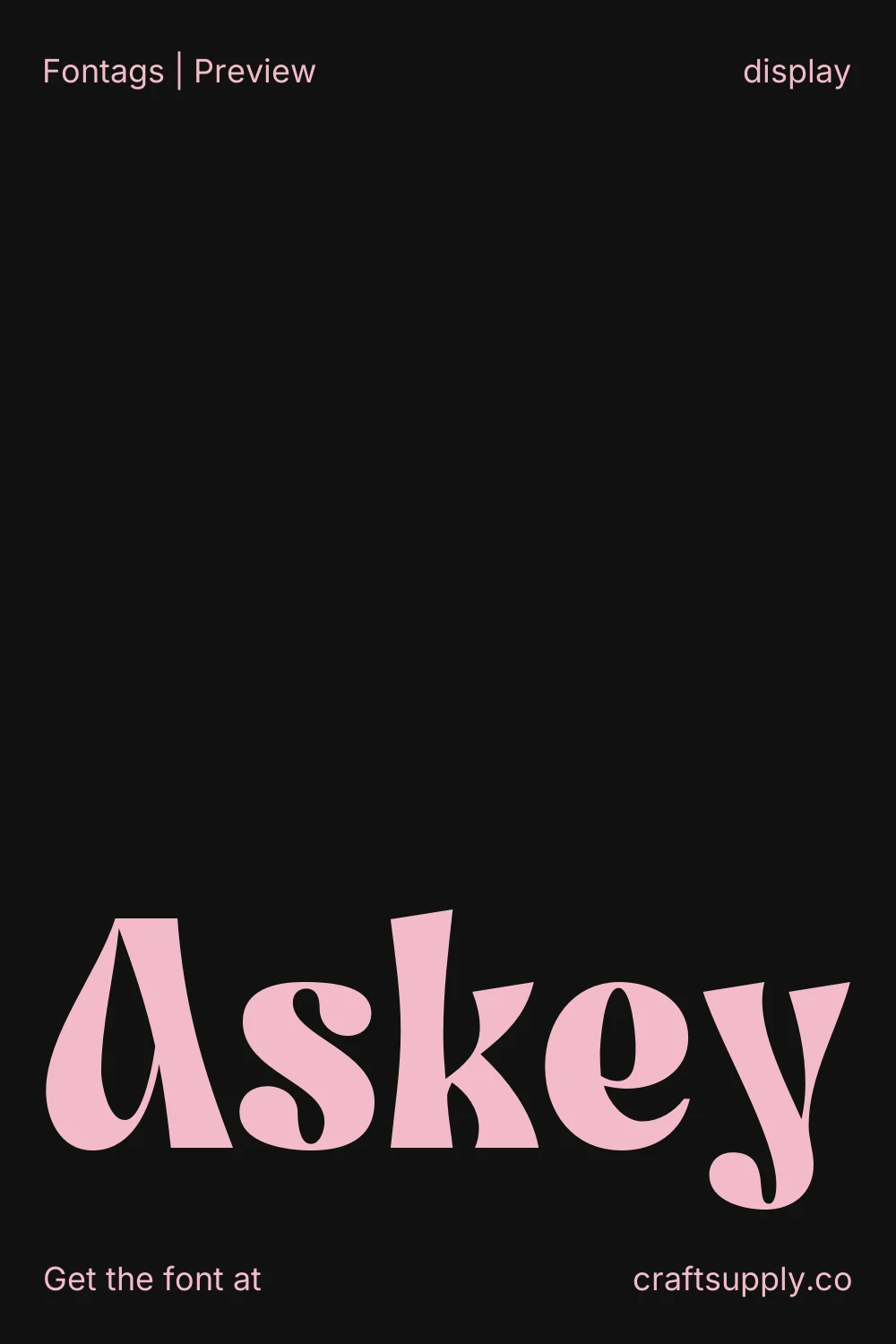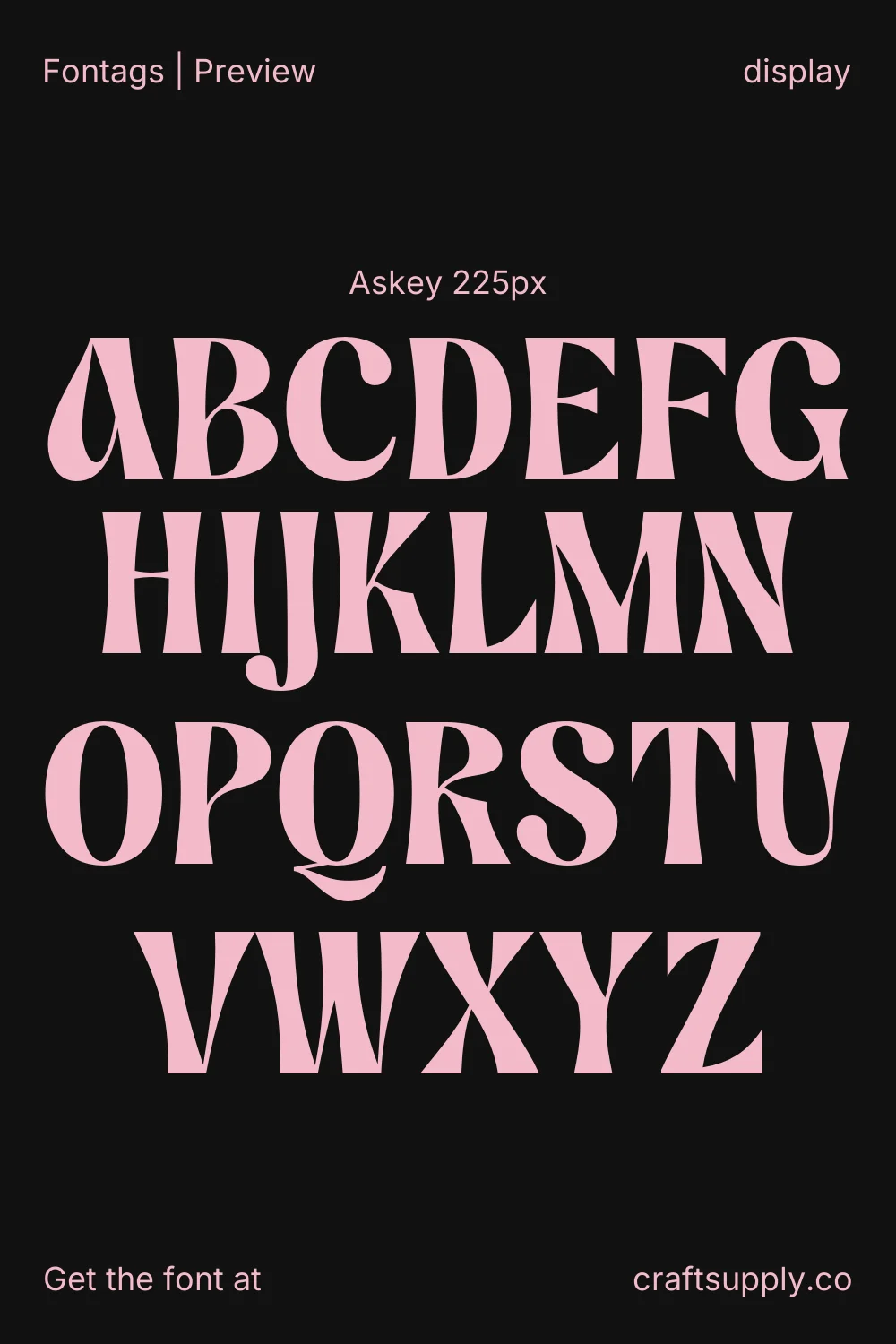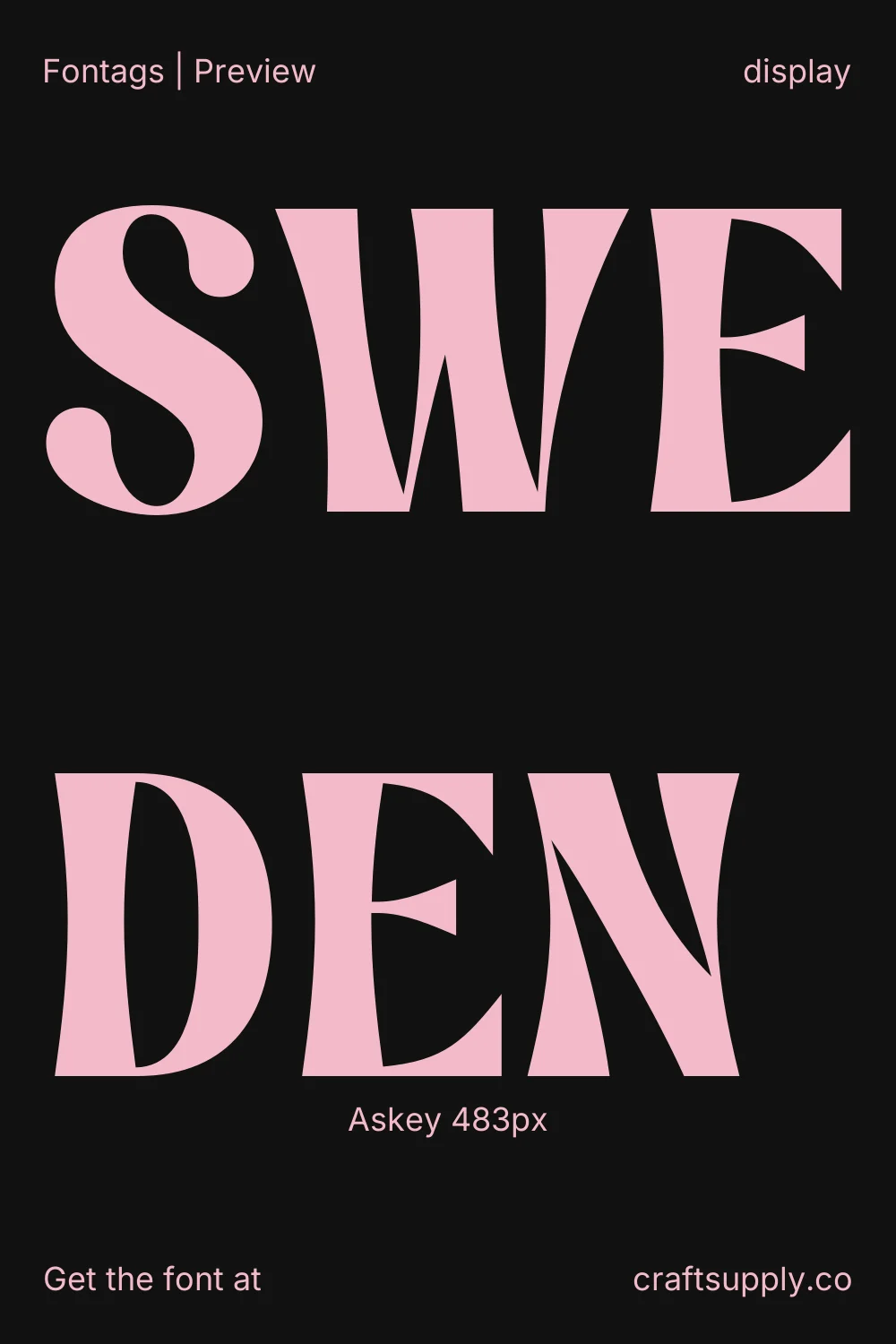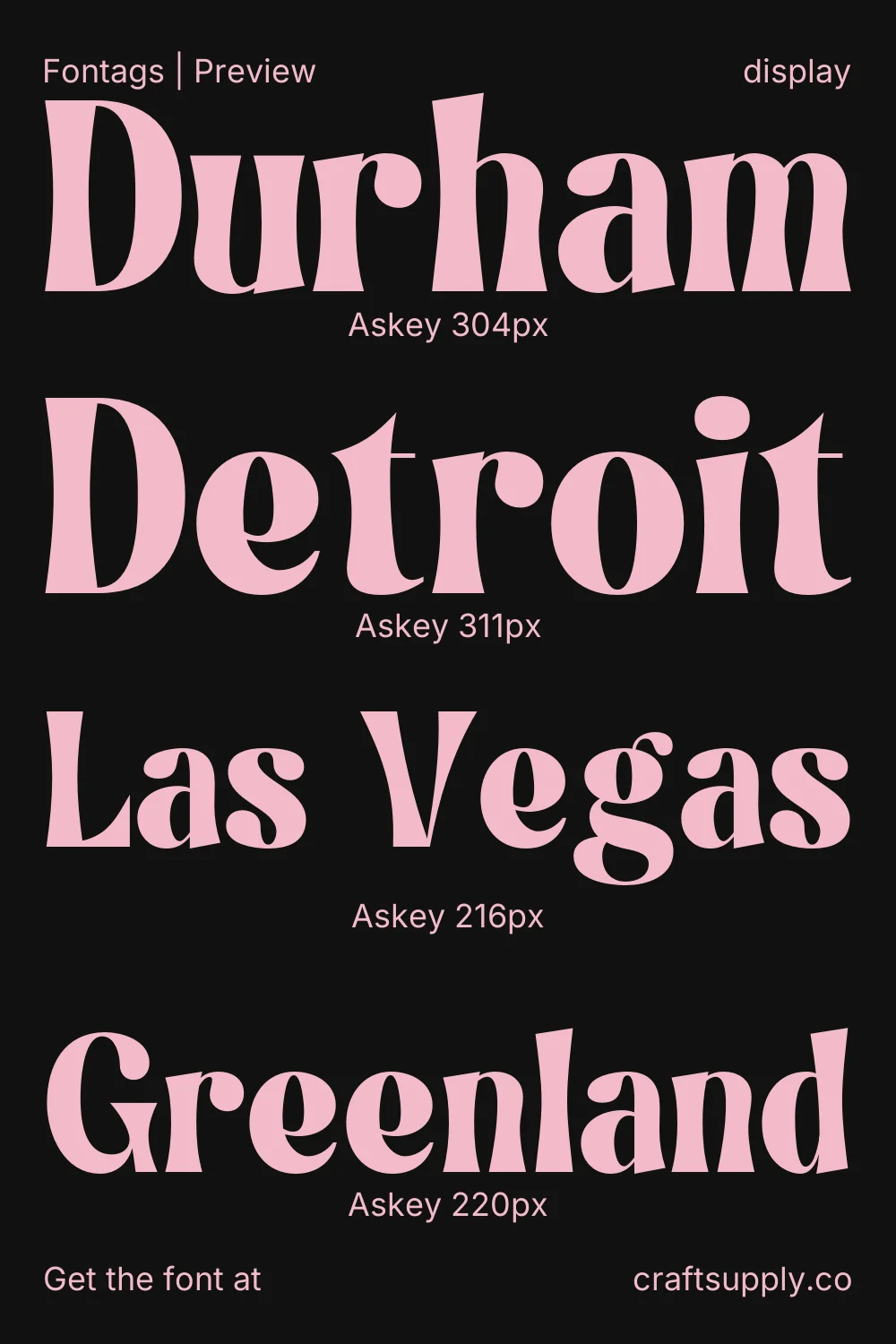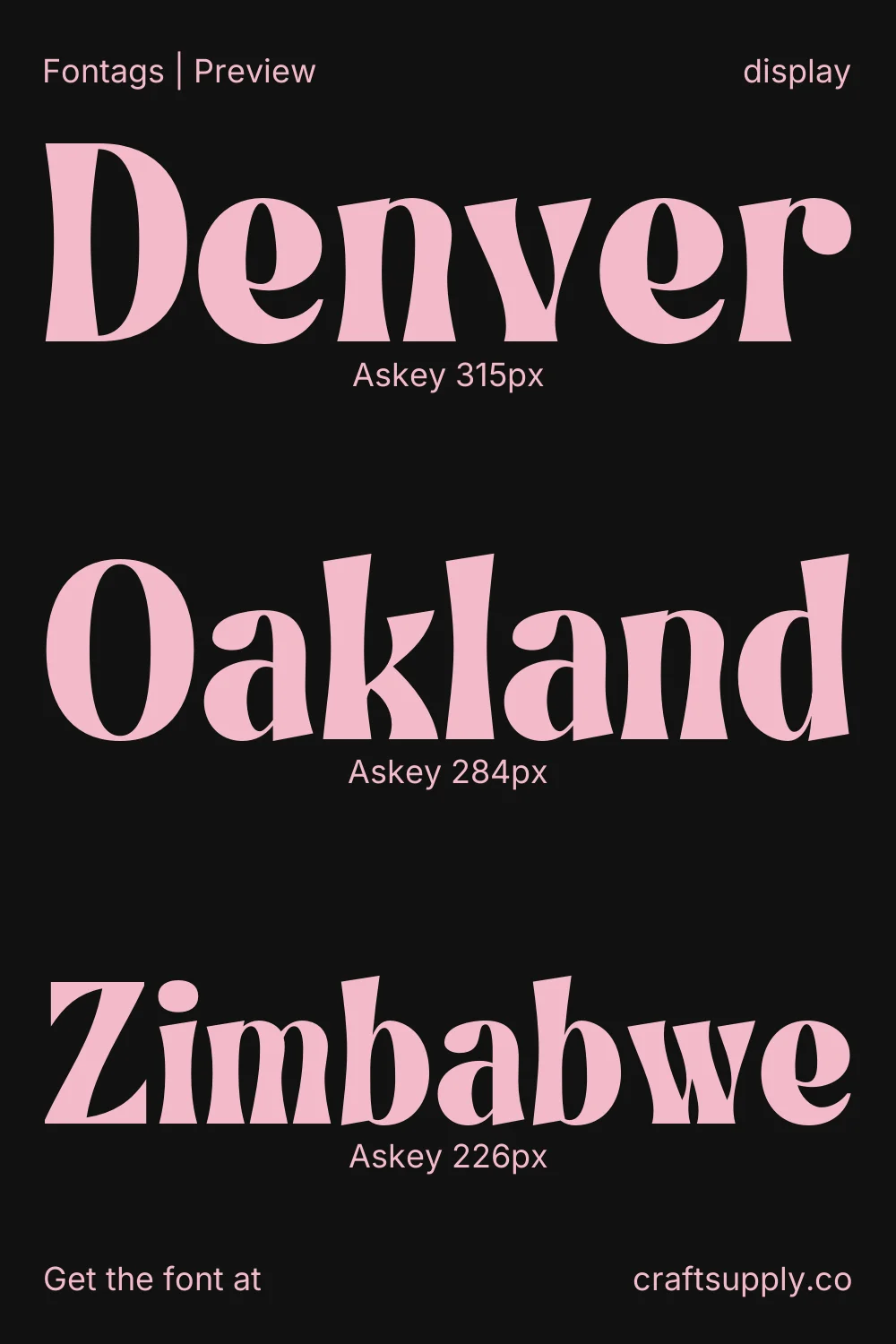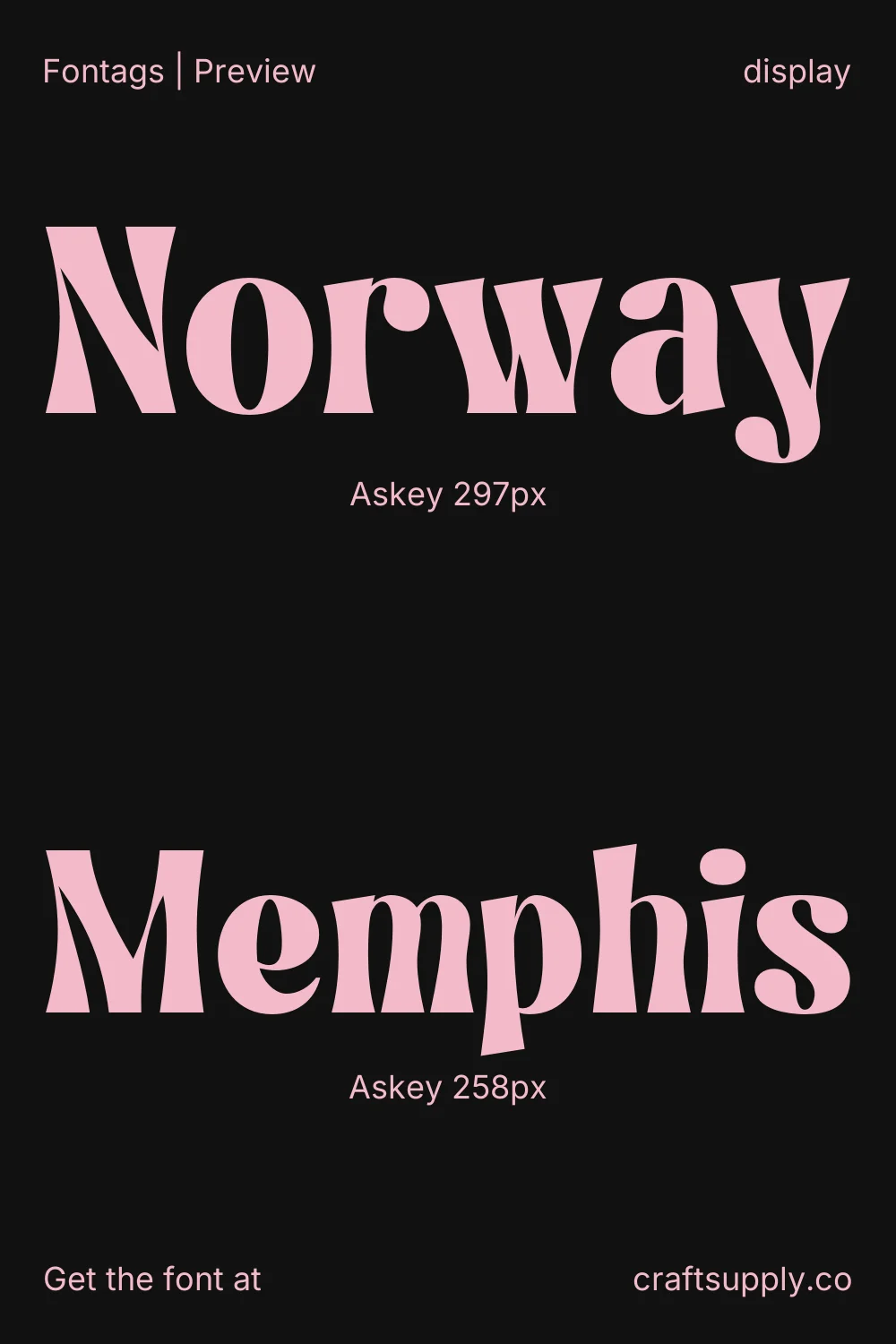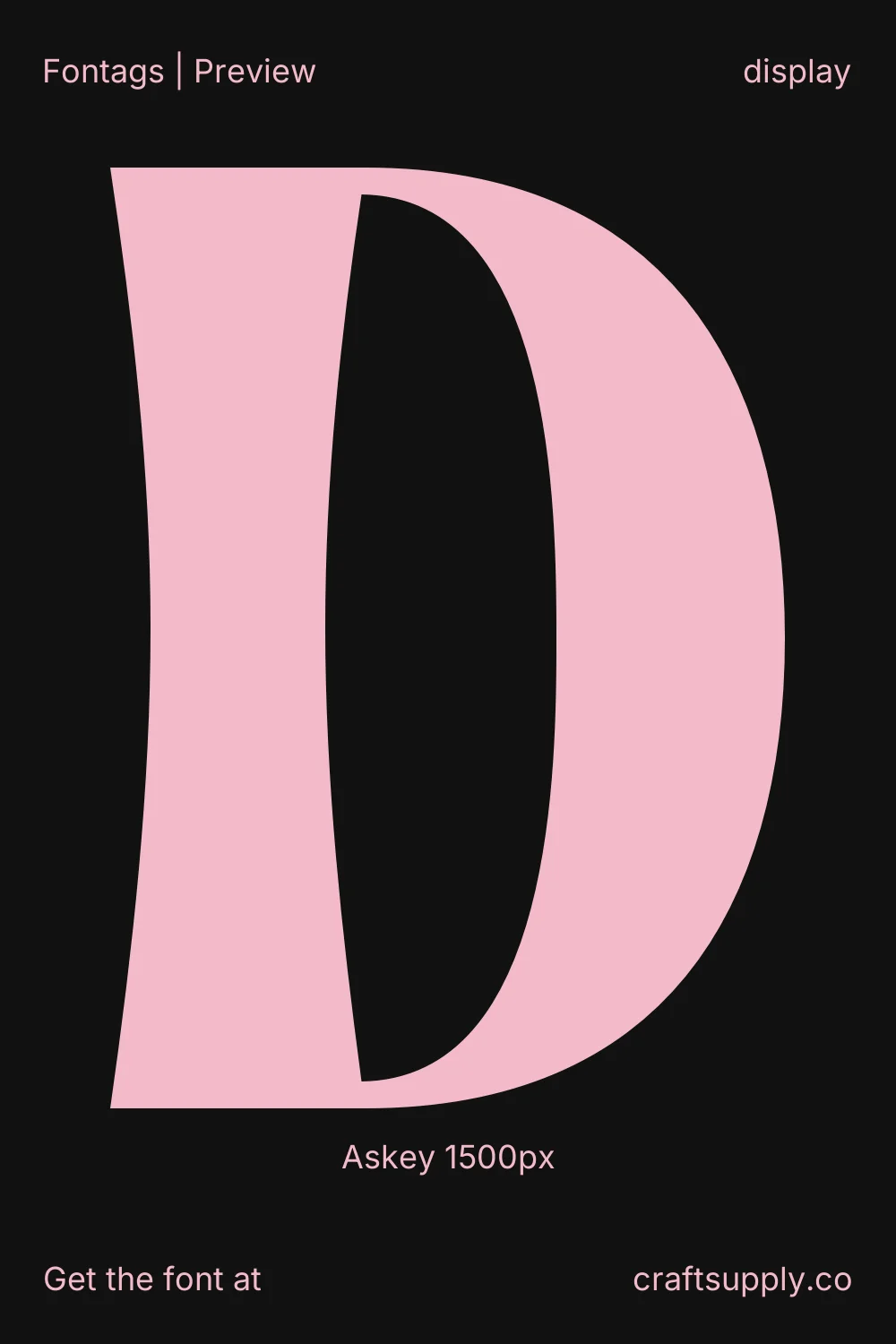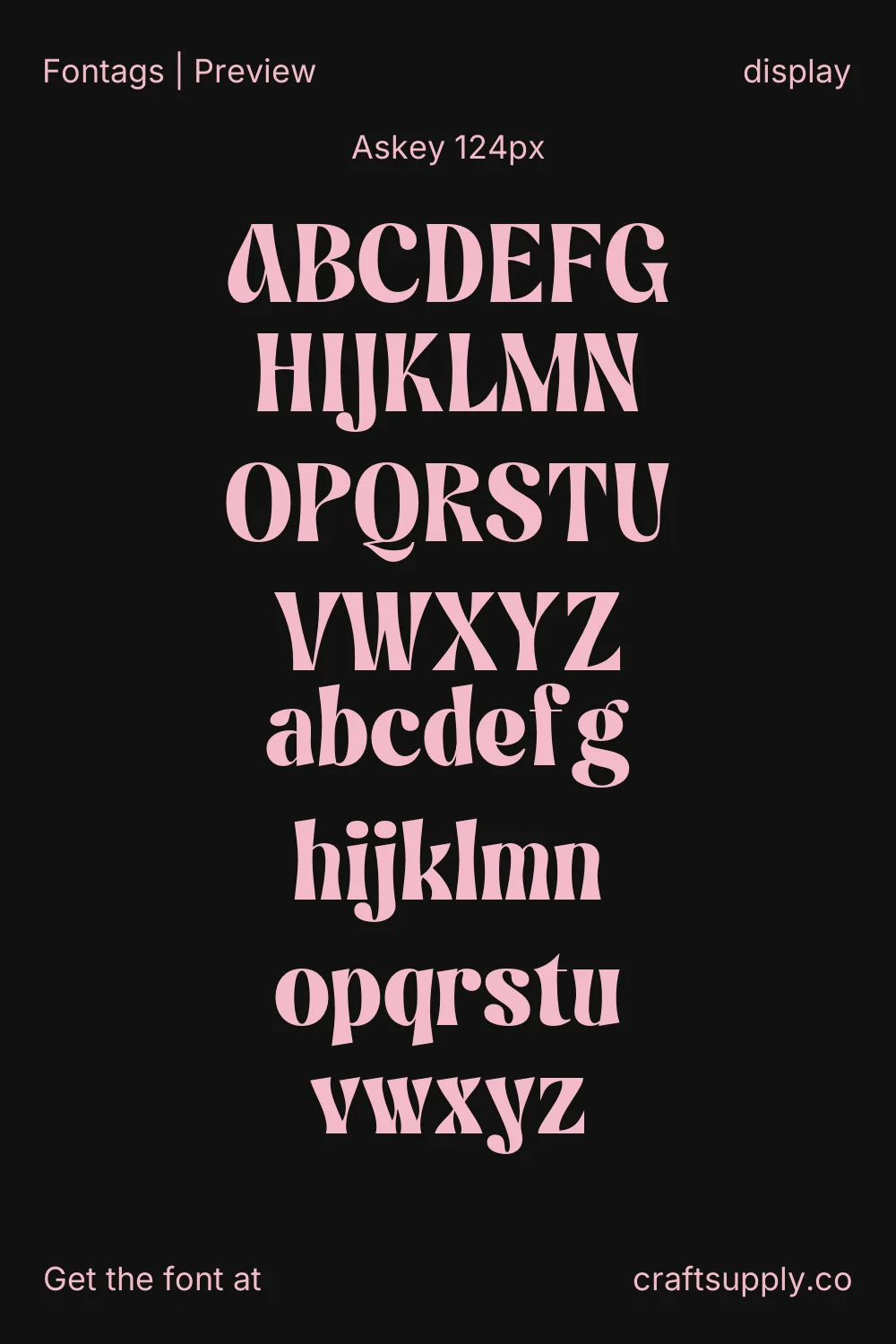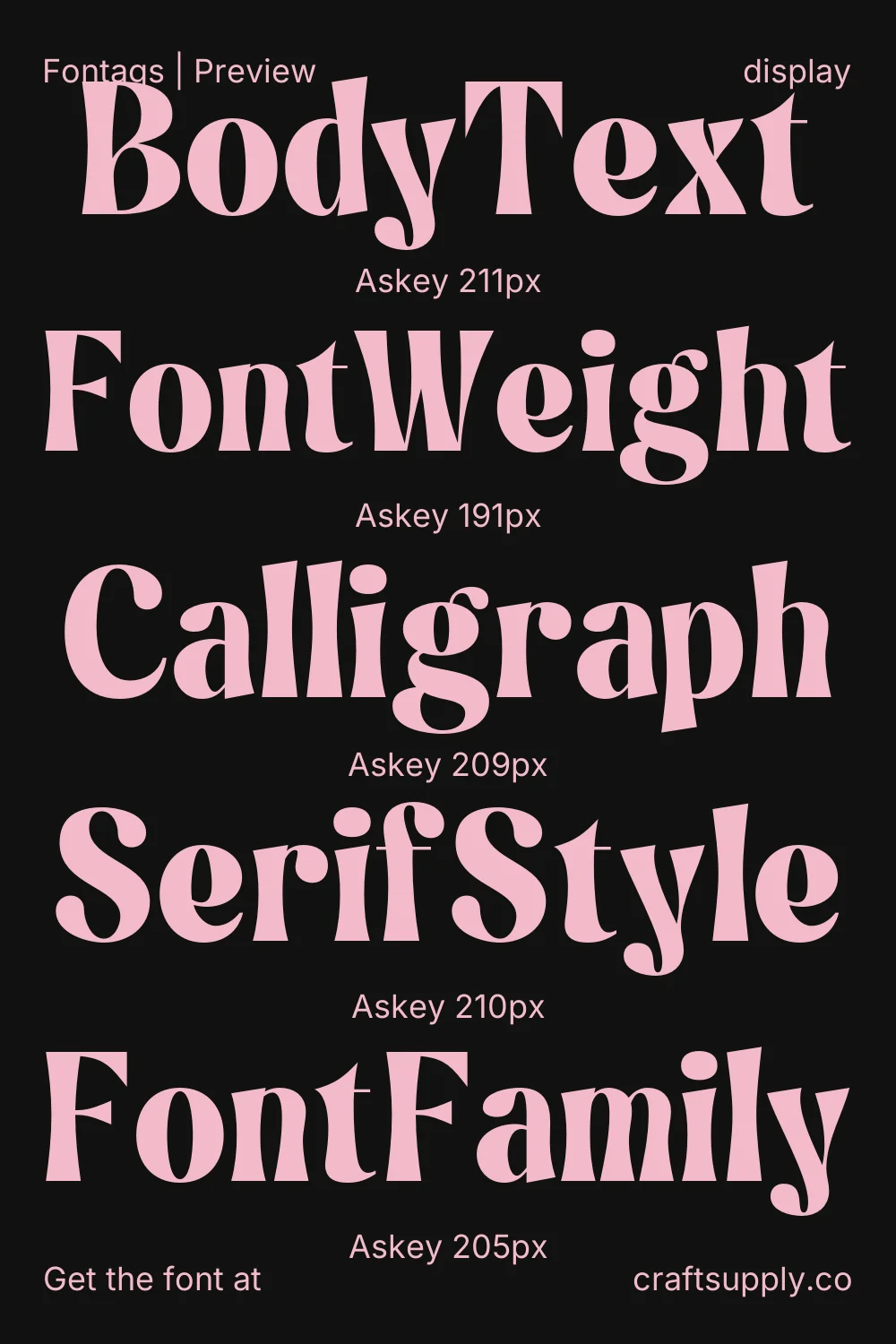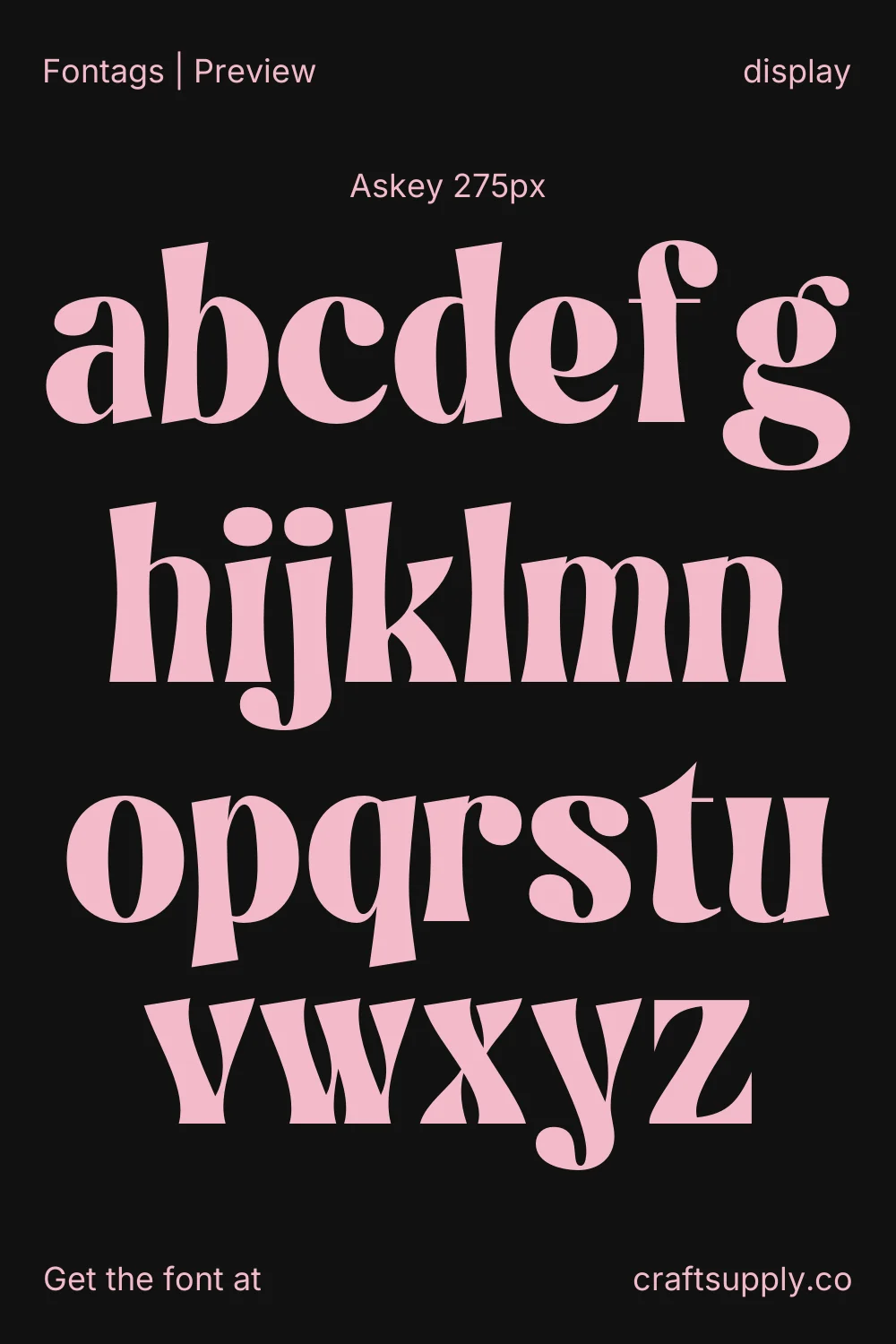
Askey
Askey is a bold and expressive serif typeface that channels funk and creativity through unconventional letterforms. Its unique serifs and artistic flair make it perfect for posters, album covers, and designs that demand individuality. Available in regular and italic styles with multilingual support, Askey brings charismatic charm to projects that embrace bold, unconventional typography.